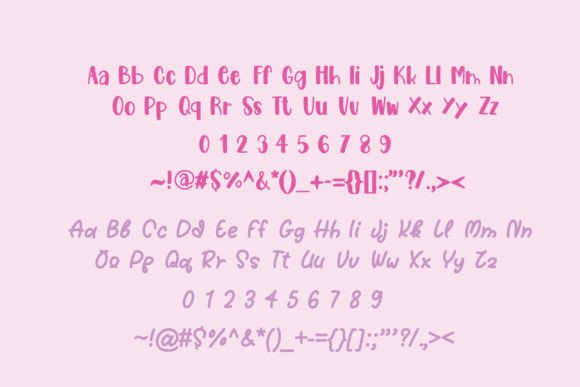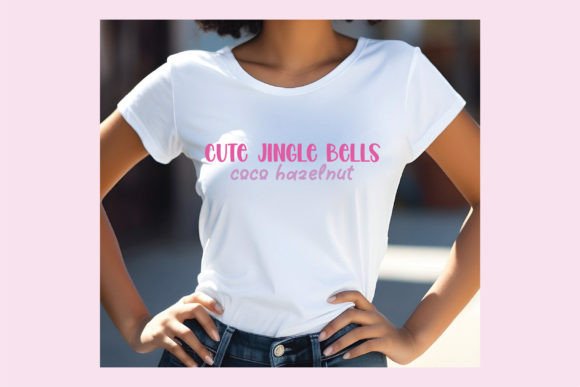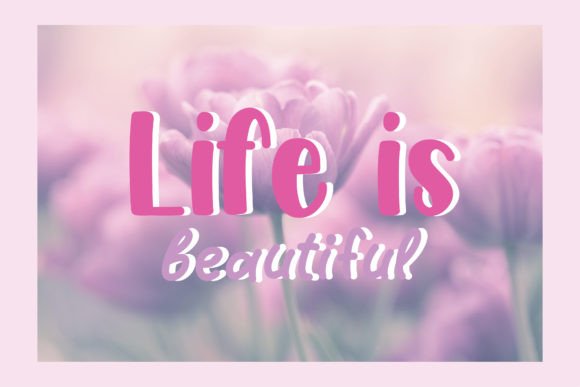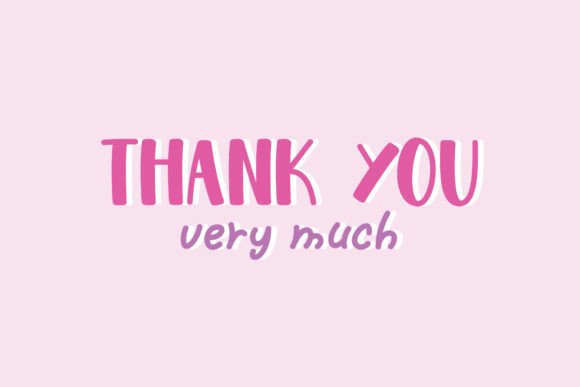
Cute Jingle Bells Font: Add a Playful Touch to Your Designs
Are you looking for a font that can add a playful and whimsical touch to your designs? Look no further than the Cute Jingle Bells Font! This fun and informal handwritten font is perfect for designers and crafters who want to create unique and eye-catching projects. In this article, we’ll take a closer look at the Cute Jingle Bells Font, its features, and how you can use it to take your designs to the next level.
Introducing Cute Jingle Bells CocoHazelnut
CuteJingleBells CocoHazelnut is a fun and informal handwritten font that is sure to capture your imagination. Its natural and unique style makes it incredibly fitting to a large pool of designs, from festive holiday projects to fun and playful crafts. The only limit is your imagination! This font is perfect for designers and crafters who want to add a personal touch to their work.
Key Features of Cute Jingle Bells Font
- Handwritten style: The Cute Jingle Bells Font has a natural, handwritten style that gives it a unique and playful feel.
- Informal and fun: This font is perfect for creating fun and informal designs that are sure to capture the attention of your audience.
- Unique and eye-catching: The Cute Jingle Bells Font is sure to stand out from the crowd, making it perfect for designers and crafters who want to create unique and eye-catching projects.
- Versatile: This font can be used for a wide range of designs, from holiday projects to fun and playful crafts.
How to Use Cute Jingle Bells Font in Your Designs
The Cute Jingle Bells Font is easy to use and can be incorporated into a wide range of designs. Here are a few ideas to get you started:
- Holiday projects: Use the Cute Jingle Bells Font to create festive holiday projects, such as Christmas cards, Halloween decorations, and Easter eggs.
- Fun and playful crafts: This font is perfect for creating fun and playful crafts, such as DIY signs, banners, and garlands.
- Social media graphics: Use the Cute Jingle Bells Font to create eye-catching social media graphics, such as Facebook posts, Instagram stories, and Twitter headers.
- Branding and packaging: This font can also be used for branding and packaging projects, such as logos, labels, and product packaging.
Tips and Tricks for Using Cute Jingle Bells Font
Here are a few tips and tricks to help you get the most out of the Cute Jingle Bells Font:
- Experiment with different colors: The Cute Jingle Bells Font looks great in a variety of colors, so don’t be afraid to experiment and find the perfect color scheme for your design.
- Mix and match with other fonts: This font can be paired with other fonts to create a unique and eye-catching design.
- Use it for headings and titles: The Cute Jingle Bells Font is perfect for headings and titles, as it adds a playful and whimsical touch to your design.
The Cute Jingle Bells Font is a fun and informal handwritten font that is perfect for designers and crafters who want to add a playful touch to their designs. Its natural and unique style makes it incredibly fitting to a large pool of designs, and its versatility makes it easy to use for a wide range of projects. Whether you’re creating holiday projects, fun and playful crafts, or social media graphics, the Cute Jingle Bells Font is sure to capture your imagination and help you create unique and eye-catching designs.
- What is the Cute Jingle Bells Font?: The Cute Jingle Bells Font is a fun and informal handwritten font that is perfect for designers and crafters who want to add a playful touch to their designs.